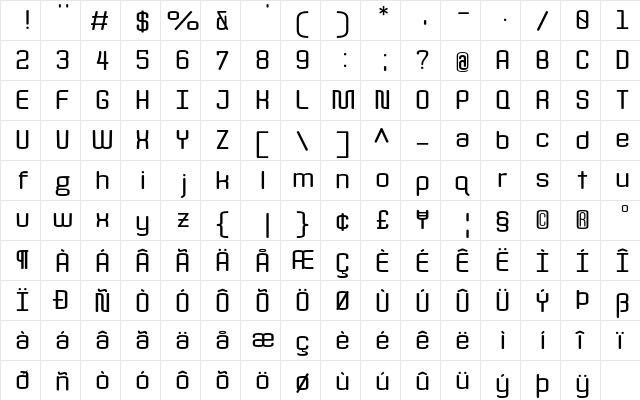
Quota Bold Ext.
| Designer | Ryan Willaismon |
Design Context for Quota Typeface
Quota takes a measured approach to typography — its balanced proportions and neutral character make it a reliable workhorse for both digital and print work. Its bold stroke weight gives it real presence on the page.